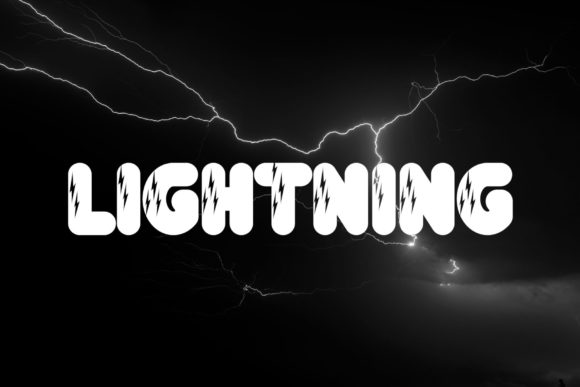
Introducing Lightning Font: A Spark of Joy for Your Designs
In the realm of visual expression, fonts hold an extraordinary power to evoke emotions, convey messages, and create captivating designs. With its unique and playful personality, Lightning Font bursts onto the scene as a display font that electrifies your digital creations, leaving an indelible mark on the hearts of your audience.
Picture this: a font so vibrant and effervescent, it dances across your screen like a bolt of lightning, leaving a trail of awe-inspiring visual impact. Lightning Font is the epitome of youthful exuberance, an artistic embodiment of pure joy and infectious happiness. Its bubbly curves and playful spirit evoke a sense of nostalgia, reminding us of carefree childhood days spent in unbridled imagination.
Step into the world of Lightning Font and discover a universe where creativity takes flight. Unleash your imagination and let this remarkable font elevate your designs to new heights. Whether you're crafting logos that demand attention, designing eye-catching posters that spark conversation, or creating digital content that captivates and engages, Lightning Font is your trusty companion, turning your artistic visions into stunning realities.
Join the ranks of savvy designers who recognize the transformative power of Lightning Font. Let its vivacious energy infuse your projects with an irresistible charm that captivates your audience, leaving them mesmerized and eager for more. From enchanting children's books that transport readers to magical realms to playful social media graphics that spread joy like wildfire, Lightning Font is the spark that ignites your creative genius.
Are you ready to witness the transformative power of Lightning Font? Dive into its electrifying world and ignite your designs with a burst of creativity. The possibilities are endless, and the only limit is your imagination. Embrace the Lightning Font experience and watch as your designs come alive with an energy that resonates with your audience, leaving them spellbound and craving for more.